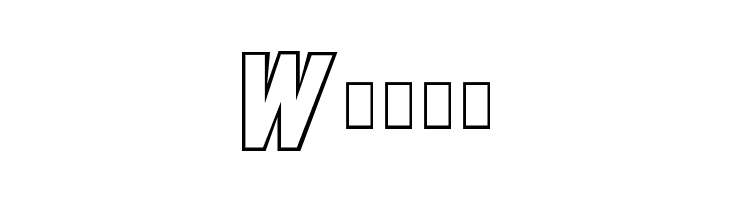
A bold, decorative font with a dynamic shadow effect.
A playful, handwritten font with tall, narrow letters and a whimsical style.
A dynamic, hand-drawn font with bold, brush-like strokes.
A bold, hand-drawn font with a playful, graffiti-like style.
A bold, high-contrast font with a vintage yet modern appeal.